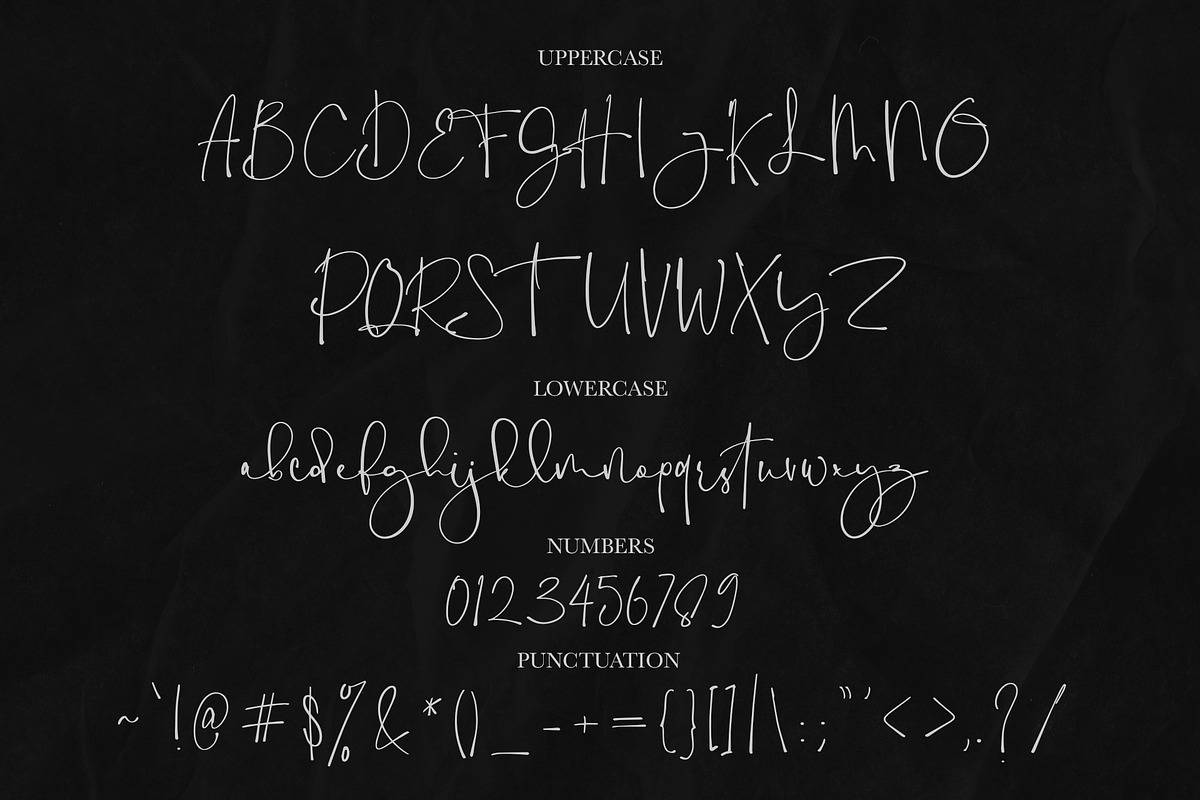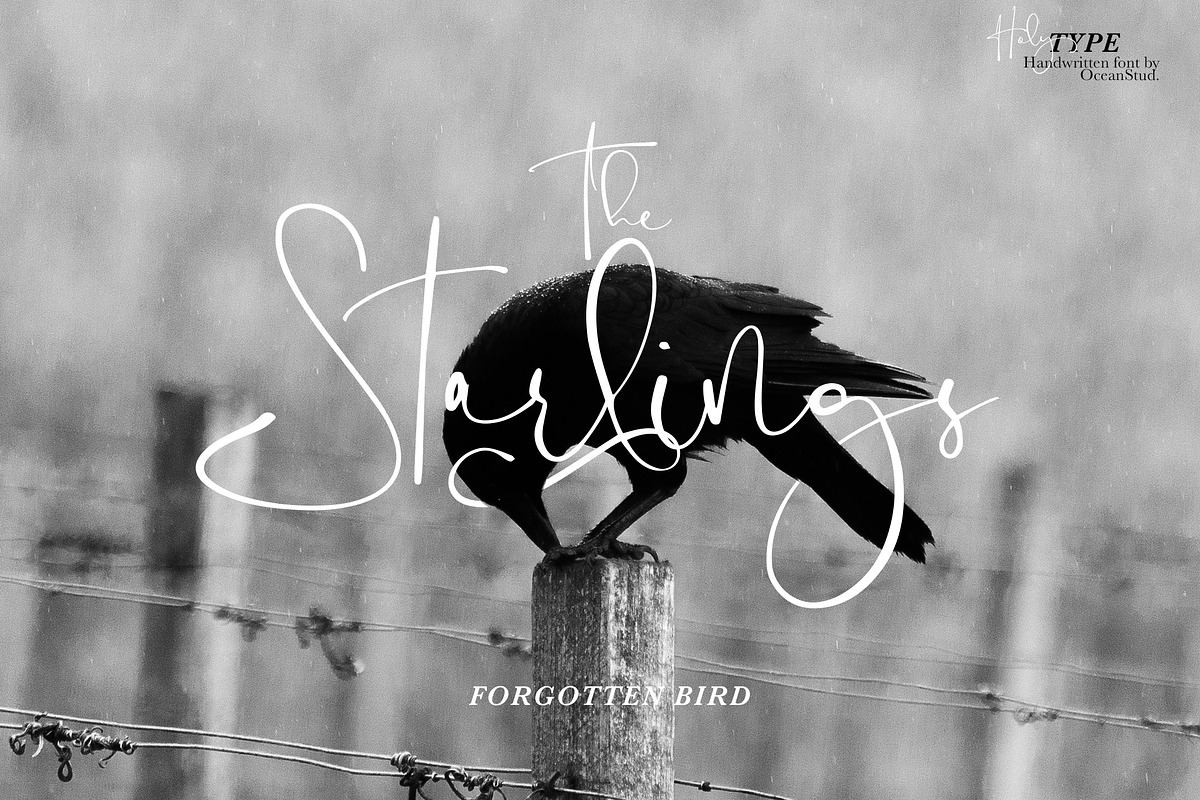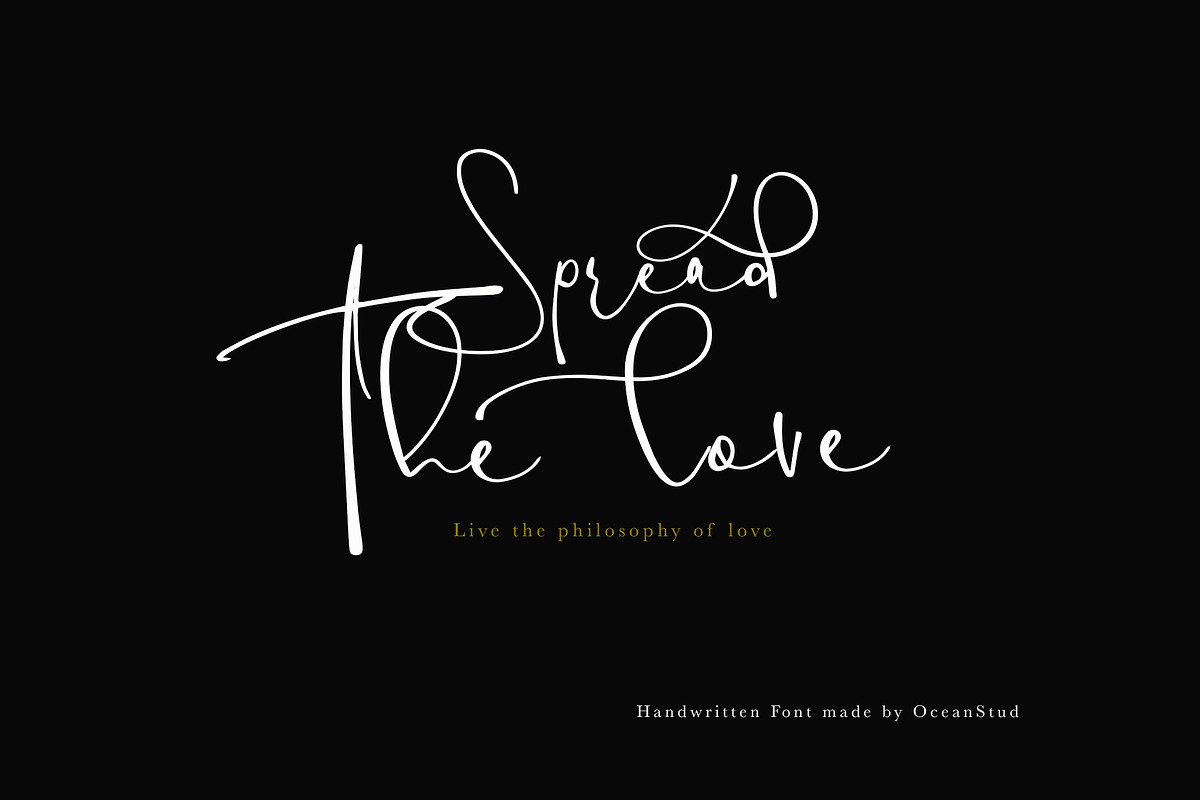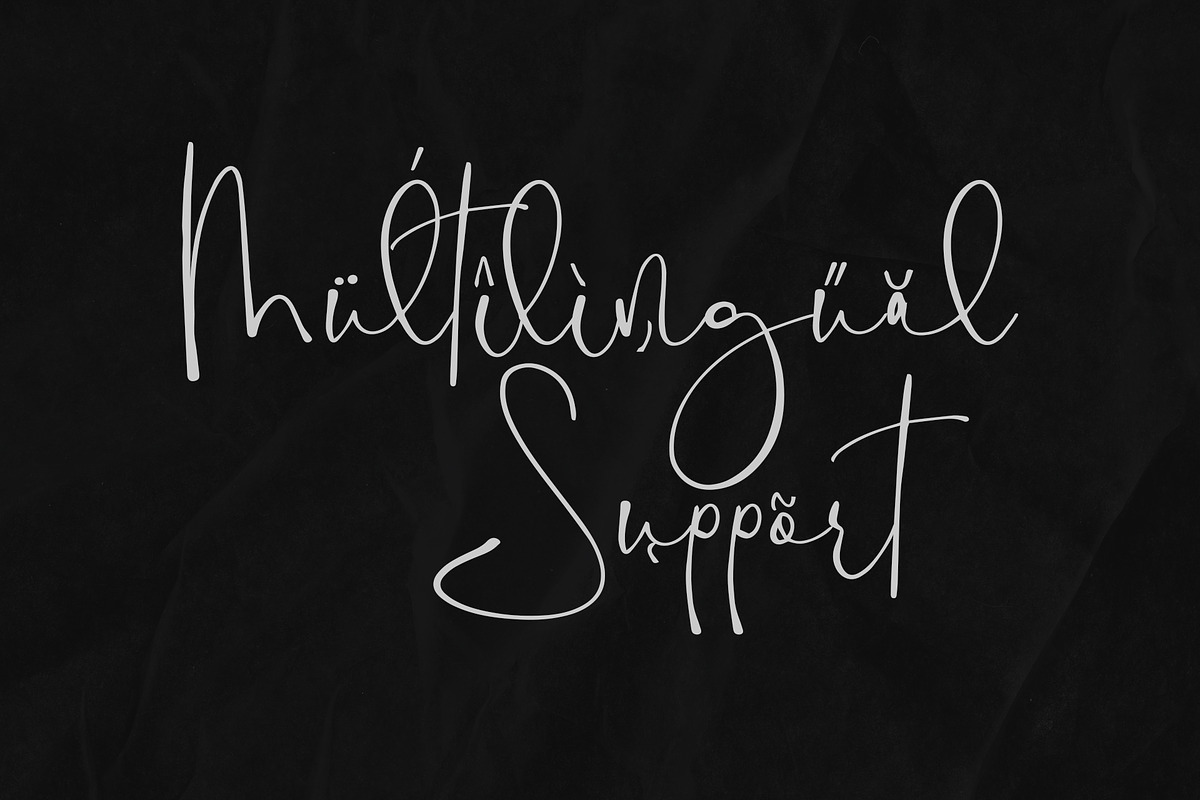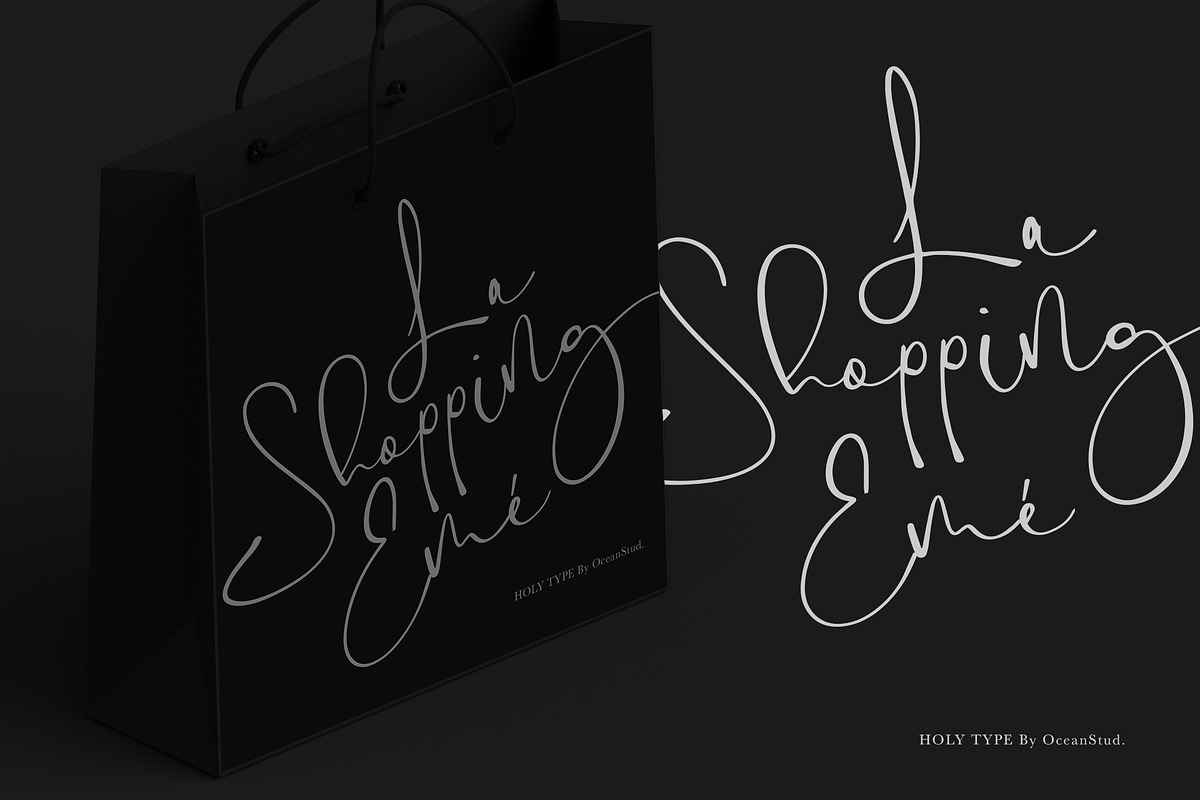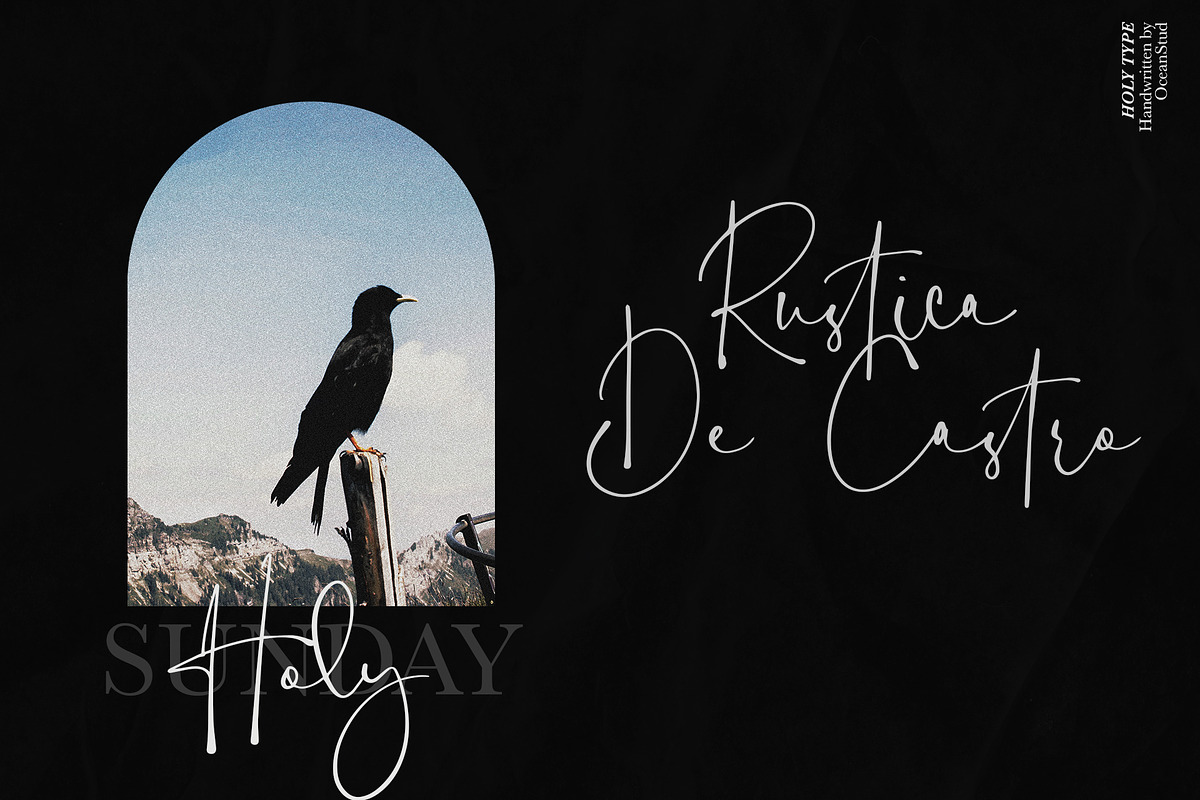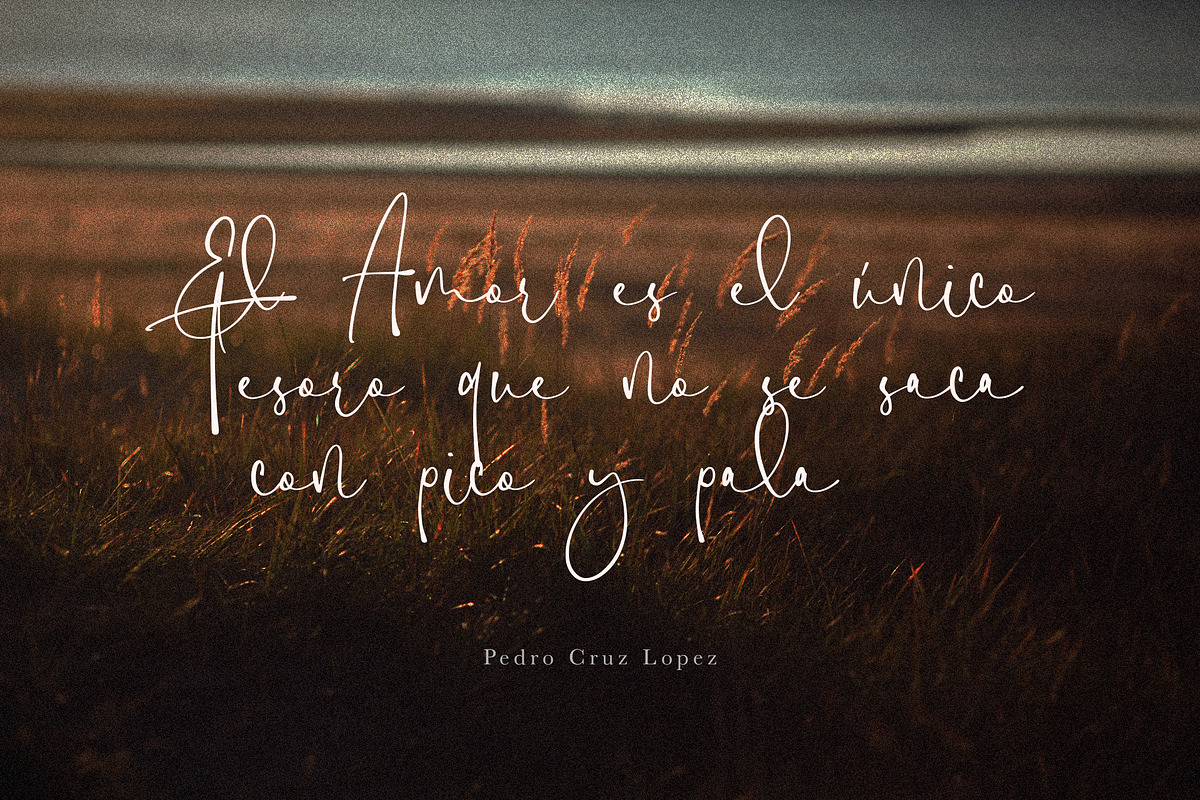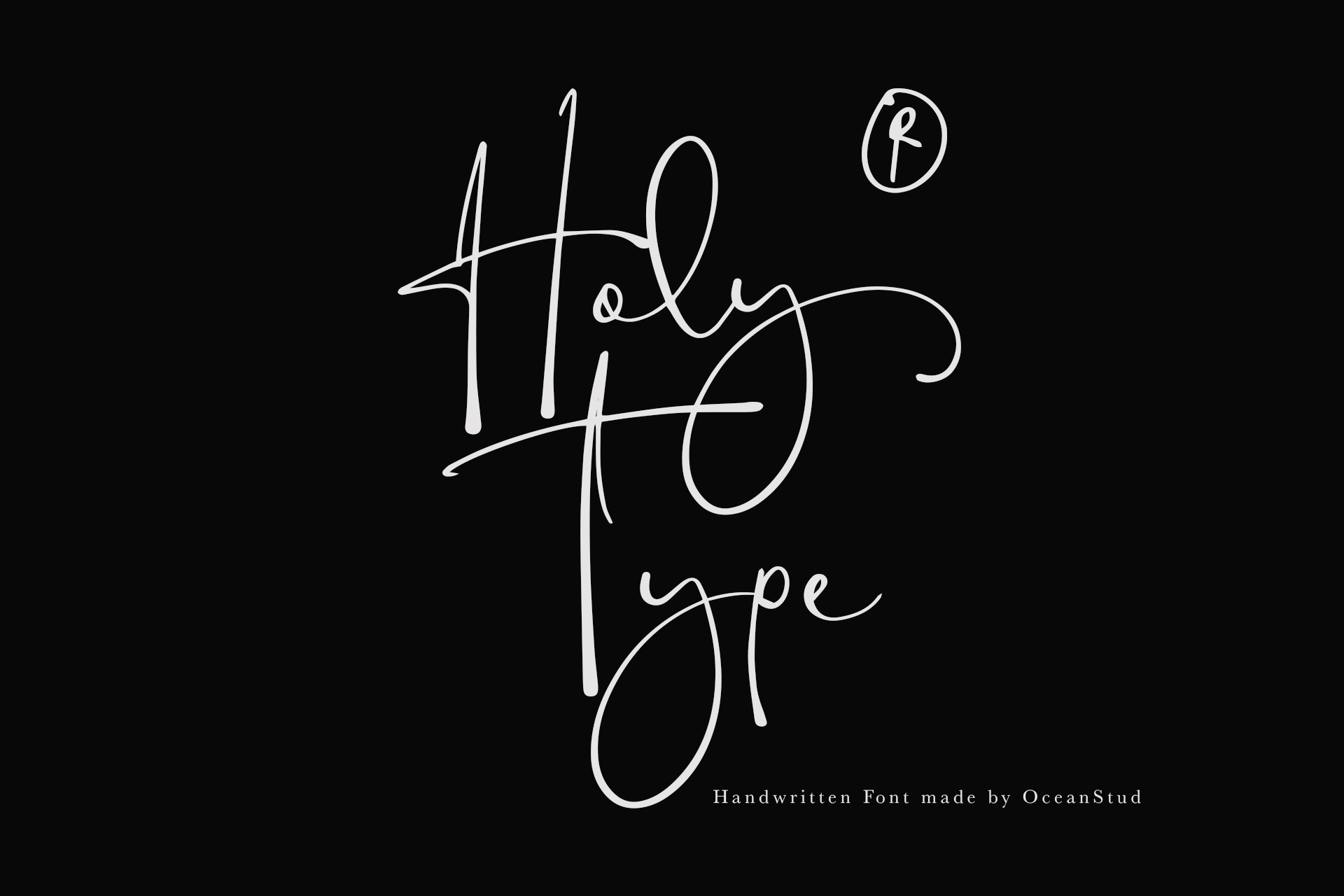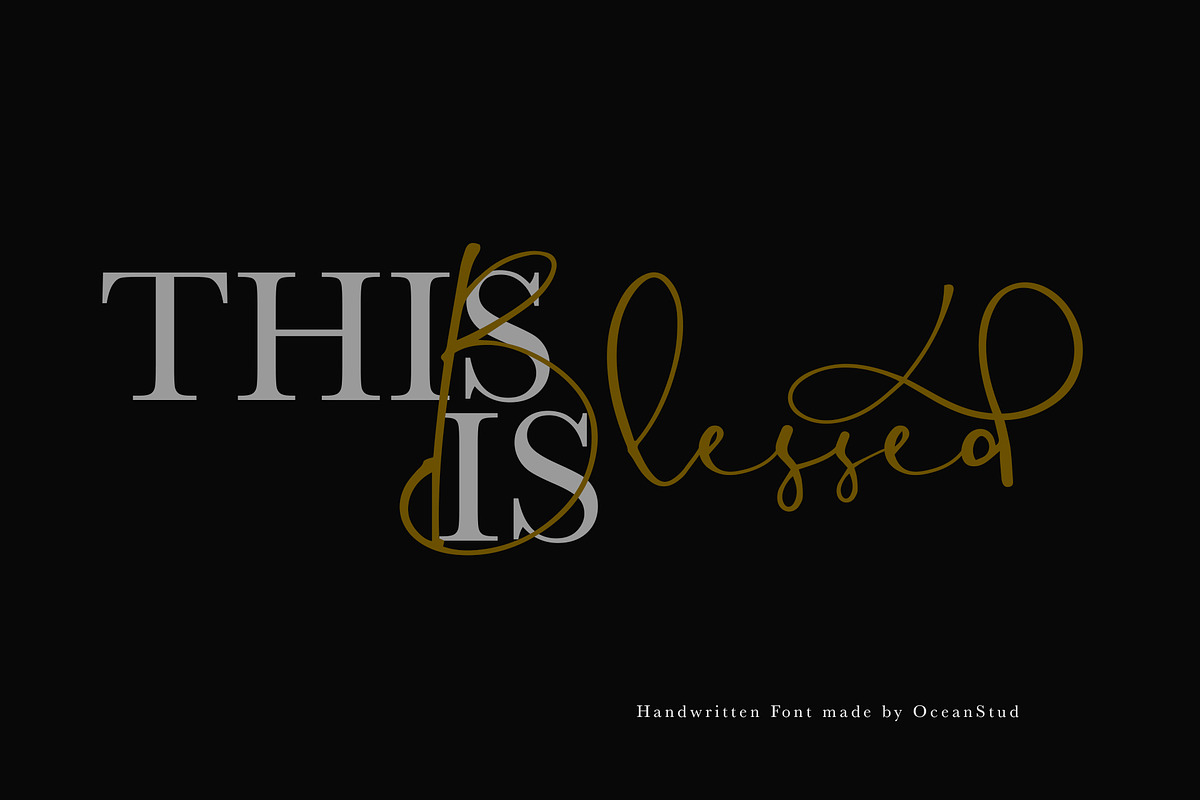
Holy Type | Handwritten Font
Introducing this is HOLY TYPE FONT a handwritten font inspired and dedicated or consecrated to God or a religious typeface , meaningfull of type.